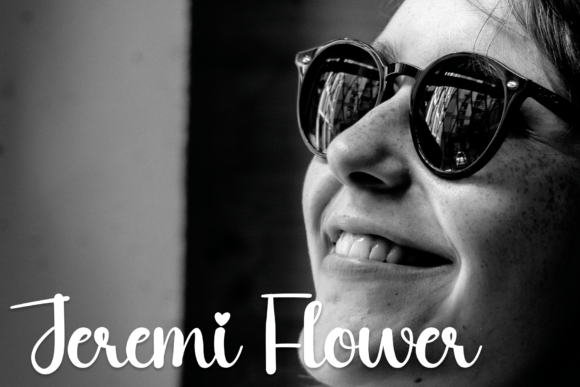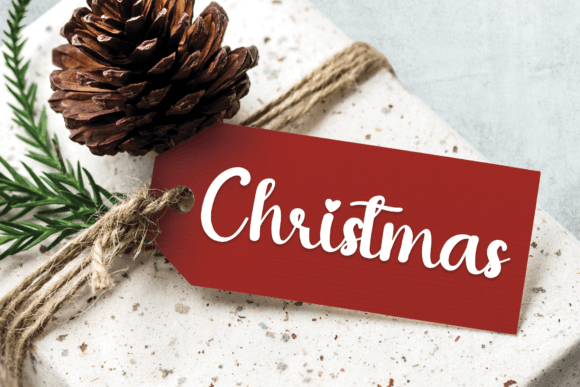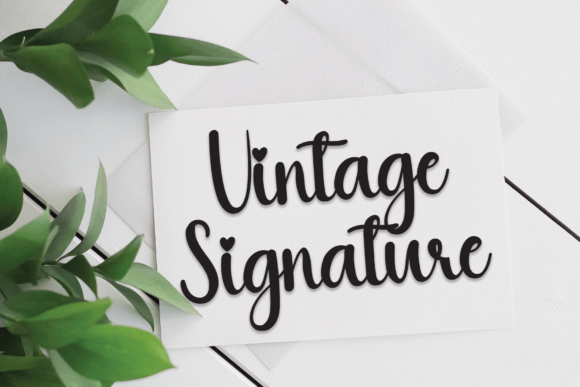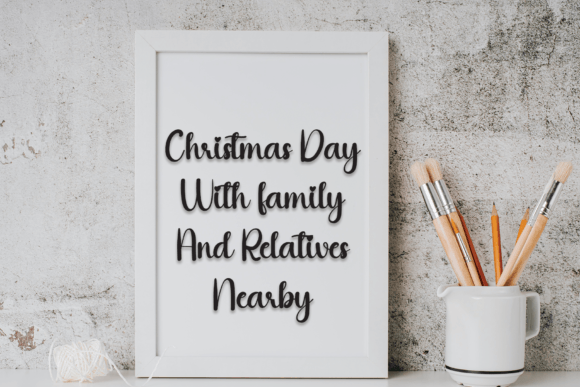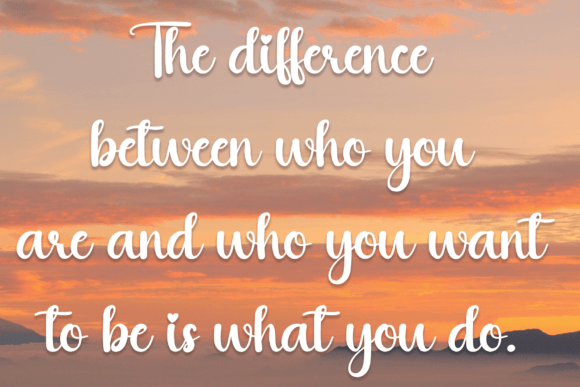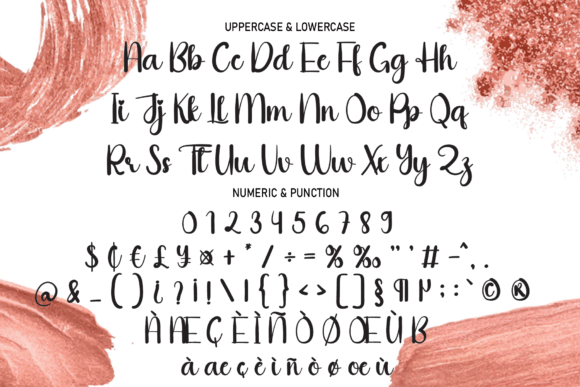
Introduction to Snoopy Font
As a designer, there’s nothing quite like the thrill of finding the perfect font to bring a creative project to life. It’s that moment when everything clicks, and your design begins to take shape. I recall a recent project where I stumbled upon the Snoopy Font, and I knew I had to share it with the world. This charming script font has a unique elegance that’s hard to resist, making it a must-have in any designer’s toolkit.
Whether you’re working on a wedding invitation, a thank you card, or a logo, the Snoopy Font is sure to add a touch of whimsy and sophistication. With its transparent background and high-quality design, it’s the perfect resource for designers who want to elevate their creative work. And the best part? It’s available for free download, making it a valuable addition to any design library.
Key Features of Snoopy Font
- High-quality, free font perfect for creative projects requiring a unique design resource.
- Unique, hand-drawn design elements allow for a transparent background, giving users flexibility in their creative project.
- Large character set with over 200 glyphs, ensuring users have a wide range of options for their design.
- High-resolution design, suitable for print and digital use, with a minimum resolution of 300 DPI.
- Perfect for designers looking for a fun, playful font to add a touch of whimsy to their creative project.
Honest Review: Snoopy Font
I recently stumbled upon the Snoopy Font and was excited to try it out for a creative project. The font is available as a free download, which is a great resource for designers on a budget. One of the standout features of the Snoopy Font is its high quality and unique design, which makes it perfect for a variety of creative projects.
- ✨ Unique and quirky design
- ✨ High quality and crisp typography
- ✨ Transparent background option for versatility
However, I did encounter a few limitations while using the Snoopy Font. One of the main issues is that it’s not suitable for all types of projects, particularly those that require a more formal or professional tone. Additionally, the font may not be compatible with all operating systems, which could cause issues with font rendering.
- ⚠️ Limited compatibility with certain operating systems
- ⚠️ May not be suitable for formal or professional projects
Overall, I was impressed with the Snoopy Font and would recommend it for designers who are looking for a unique and quirky design element for their creative project. With its high quality and free download option, it’s definitely a valuable resource to have in your design toolkit.
Getting the Most Out of the Snoopy Font
To get the most out of the Snoopy Font, use it in combination with other design elements to create a unique and eye-catching visual identity. Experiment with different font sizes, colors, and styles to find the perfect balance for your creative project.
The Snoopy Font is ideal for use in a variety of creative projects, including logo design, branding, and graphic design. Its high-quality design and transparent background capabilities make it a versatile design resource for any project.
Alternatives to Snoopy Font
Comic Sans MS is a popular sans-serif font known for its playful and casual feel, making it suitable for creative projects such as children’s books, comic strips, and informal designs. It has a transparent background and is available for free download. When to use: Casual designs, children’s content, and informal creative projects.
Comparison to Snoopy Font: Comic Sans MS has a similar playful feel to Snoopy Font, but it lacks the distinct, quirky charm of the Snoopy Font. It’s a more generic font, but still effective for casual designs.